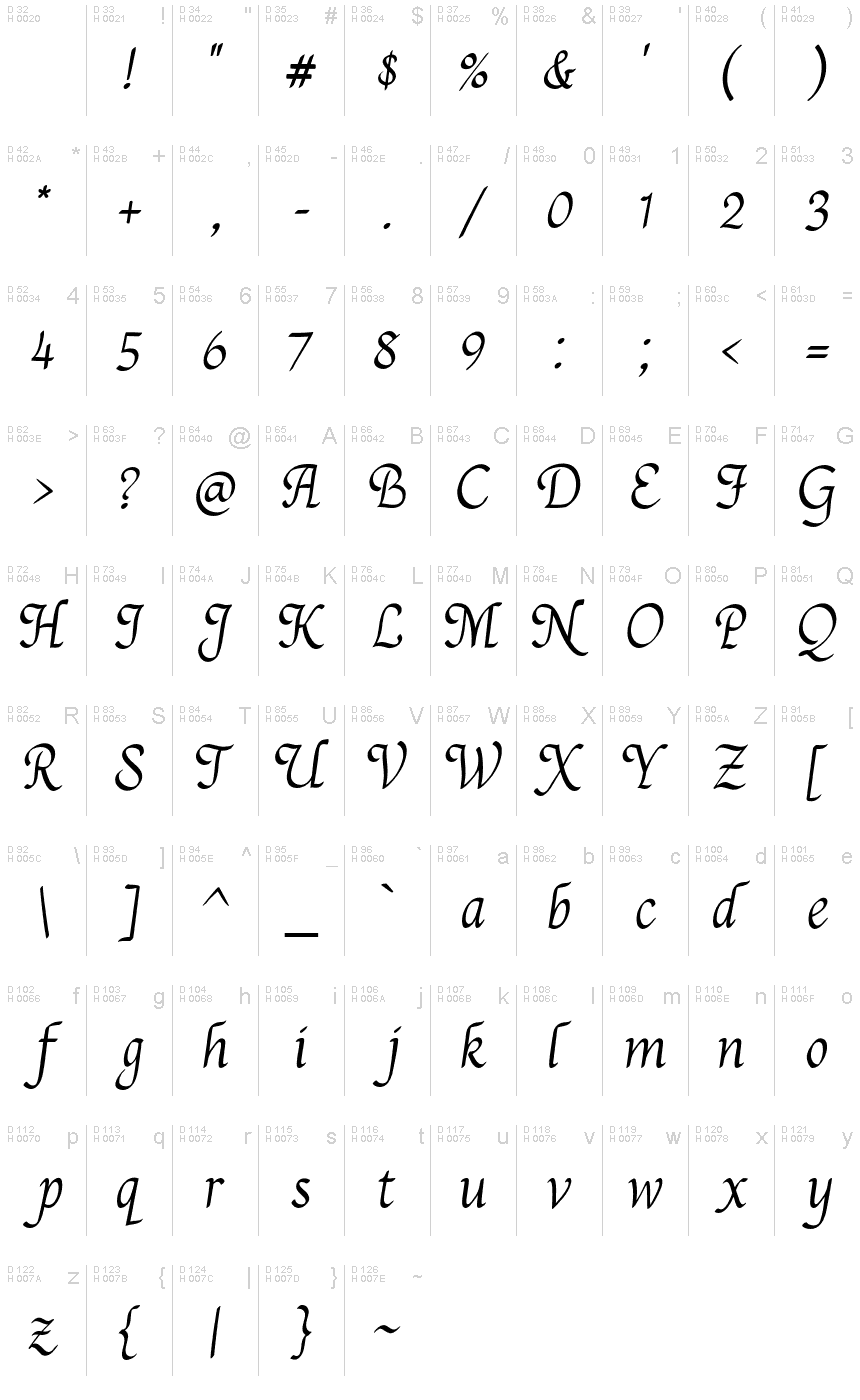
LTDiploma-Regular
LT Diploma, crafted by LyonsType, is a semi-light vintage calligraphy font that exudes sophistication and elegance. This font’s fluid strokes and curves evoke a sense of old-world charm while maintaining modern sensibilities. LT Diploma is perfect for wedding invitations, branding projects, or any design that requires a touch of refined beauty. Its semi-light weight makes it an ideal choice for body copy or headings that require legibility without sacrificing style. Whether you’re creating elegant packaging or designing an upscale restaurant menu, LT Diploma will elevate your project to the next level with its timeless appeal.
A calligraphic font - usable for diplomas, certificates, and anything that has Chancery-esque fonts involved.
LT Diploma